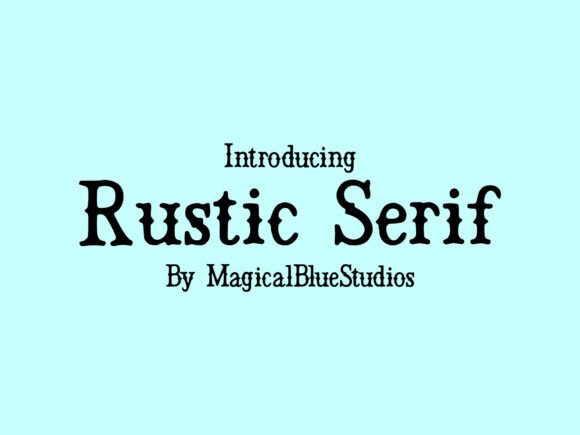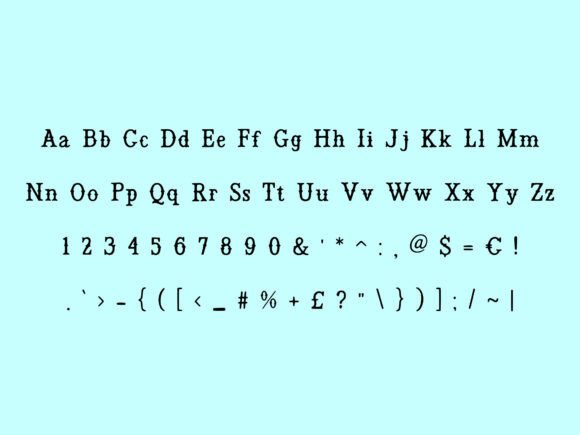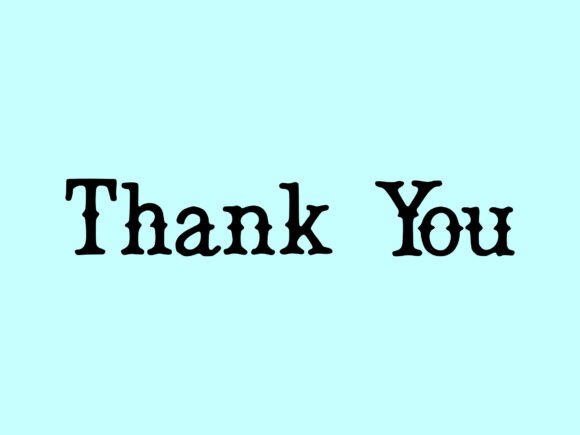
Rustic Serif Font
About the Rustic Serif Font
The Rustic Serif Font offers a perfect balance of form and function for your design needs. Rustic Serif is a bold and distressed typeface with a vintage Western charm. Perfect for logos, branding, posters, signage, apparel, and rustic-themed projects. Its rugged and classic style makes it ideal for farmhouse, country, and retro designs. Compatible with Cricut, Silhouette, and more!
Rustic Serif’s bold, distressed aesthetic shines in headlines, short text blocks, and logo design. It’s excellent for branding projects emphasizing heritage, craftsmanship, or a vintage feel – think whiskey labels, coffee shops, or Western-themed apparel. Avoid using it for large amounts of body copy; its strong texture can become visually tiring in extended reads.
Pairing it with a clean sans-serif like Open Sans for body text provides a pleasing contrast, balancing Rustic Serif’s ruggedness with readability. A more playful, handwritten script font could also complement it for a slightly more informal feel. Geometric sans-serifs would offer a modern contrast.
The overall personality is rugged yet classic, conveying a sense of authenticity and timelessness. It’s best suited for brands seeking a vintage or rustic feel with a touch of boldness.
Rustic Serif Font Usage Examples